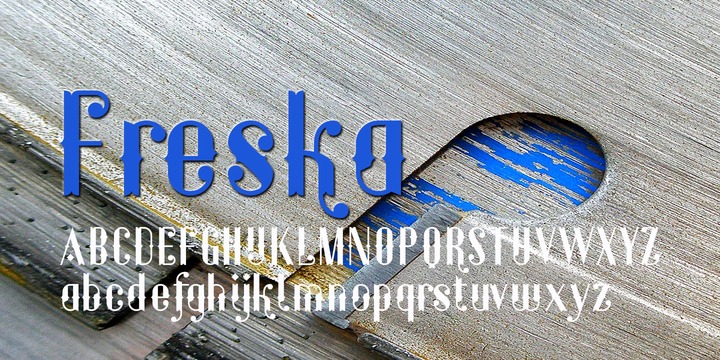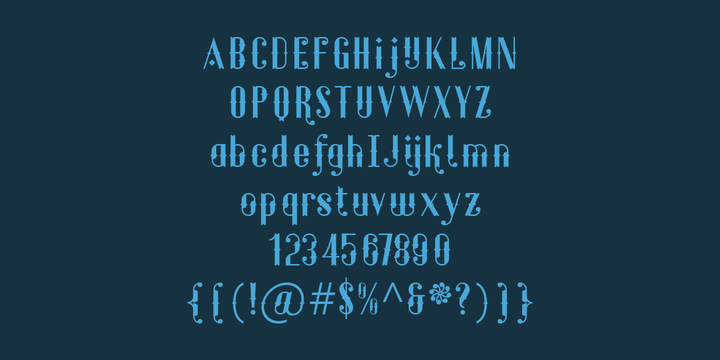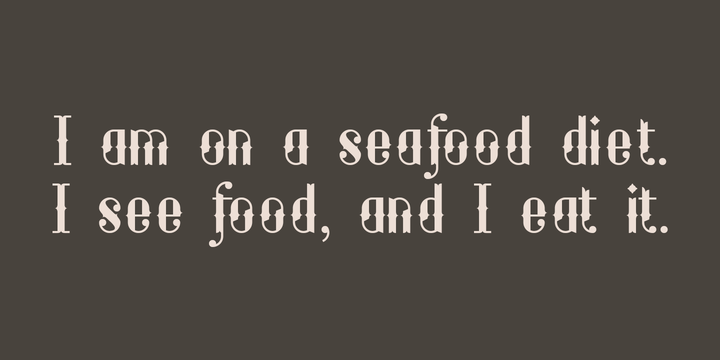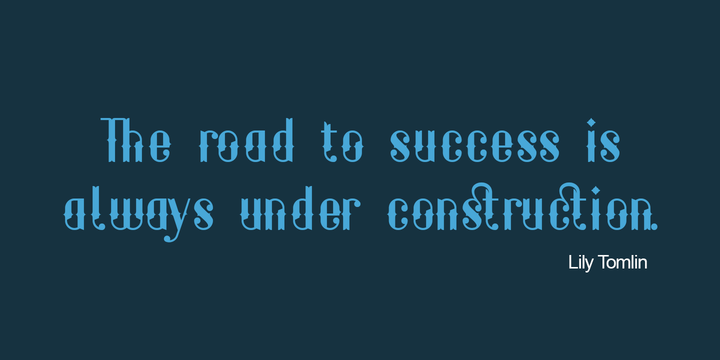
Freska font
Freska is a custom font which is applicable for any type of graphic design – print, web, motion graphics etc.
• Designers: Ronnie Dela Cruz